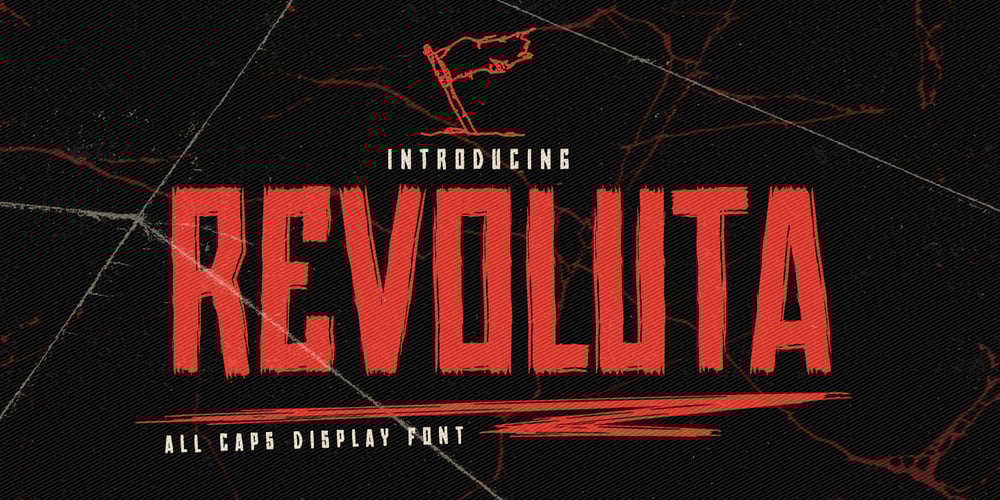
Revoluta
Revoluta font
Revoluta Font Family was designed by Abdul Malik Wisnu, Anang Fibriyanto and published by Gassstype. Revoluta contains 1 styles and family package options. Here comes a New font,Introducing REVOLUTA It’s All Caps Display Font is a Textured Natural Style and classy style, this font is great for your creative projects such as watermark on photography, and perfect for logos & branding, invitation,advertisements,product designs, stationery, wedding designs,label ,product packaging, special events or anything that need handwritting taste.REVOLUTA a natural Hand Drawn feel. This handmade font will make your design has a beautiful natural touch for each details. It is perfect for any design project as Invitation,logo, book cover, craft or any design purposes,photos, photography overlays, signs, window art, scrapbooking, tags and so much more!That is has charming, authentic and relaxed characteristic more natural look to your text.